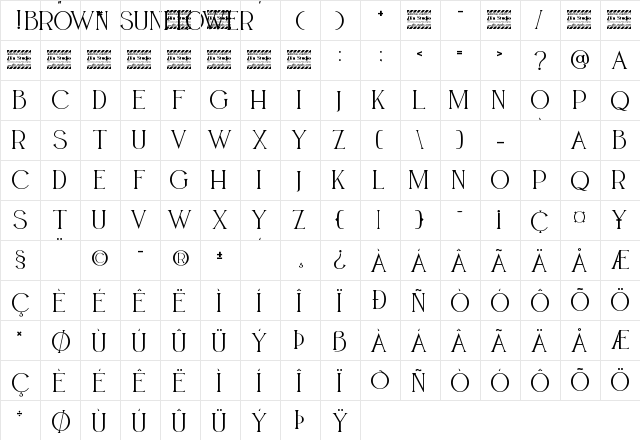
BROWN SUNFLOWER SERIF PERSONAL Regular
Design Context for BROWN SUNFLOWER SERIF PERSONAL Typeface
BROWN SUNFLOWER SERIF PERSONAL brings classic typographic sensibility to the table — its serifs and measured letterforms reflect centuries of print heritage.
Pro Tip: Use BROWN SUNFLOWER SERIF PERSONAL for editorial body copy and considered headline work. Pair with a neutral sans for UI elements or captions to create a classic hierarchy.